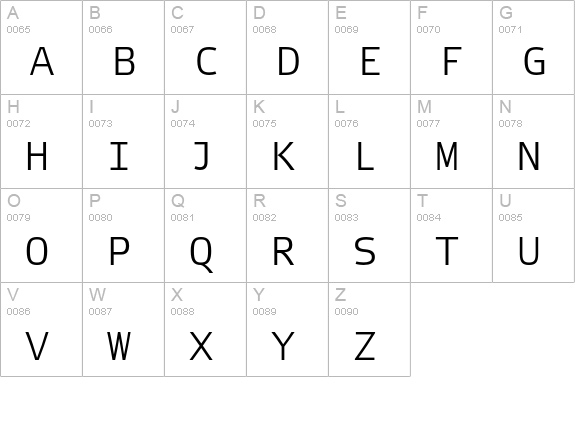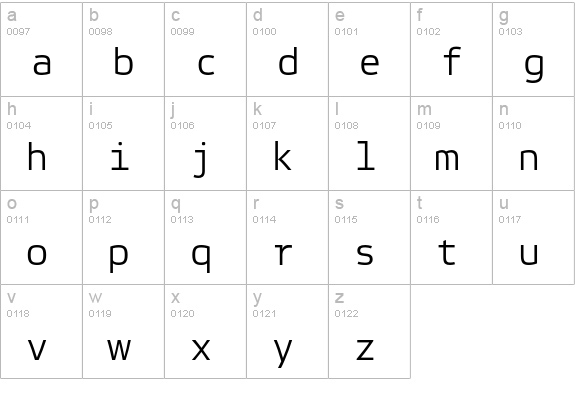
Elektra Mono Light Pro is a refined, elegant variant in the Elektra typeface family \xE2\x80\x94 well suited to elegant body text, refined sub-headings, and luxury branding.
Elektra Mono Light Pro is a sleek and modern monospaced font that exudes elegance and sophistication. With its clean lines and sharp angles, this typeface is perfect for conveying a sense of precision and professionalism in your designs. The light weight of the font adds a touch of subtlety and refinement, making it ideal for a wide range of projects. What sets Elektra Mono Light Pro apart is that it is available for free download at FontsMarket.com. This means that you can easily access and use this high-quality font for your personal and commercial projects without any cost involved. Whether you're working on a website, branding materials, or any other design project, Elektra Mono Light Pro is a versatile and stylish choice that will elevate your work to the next level.